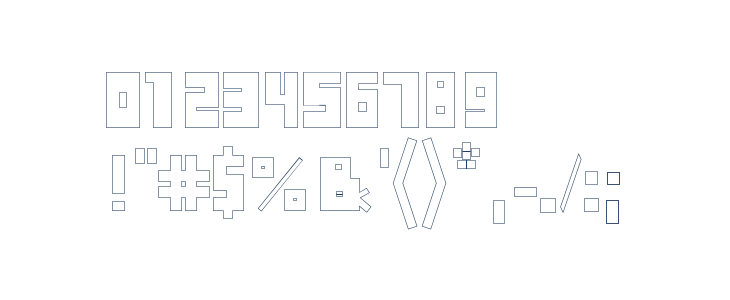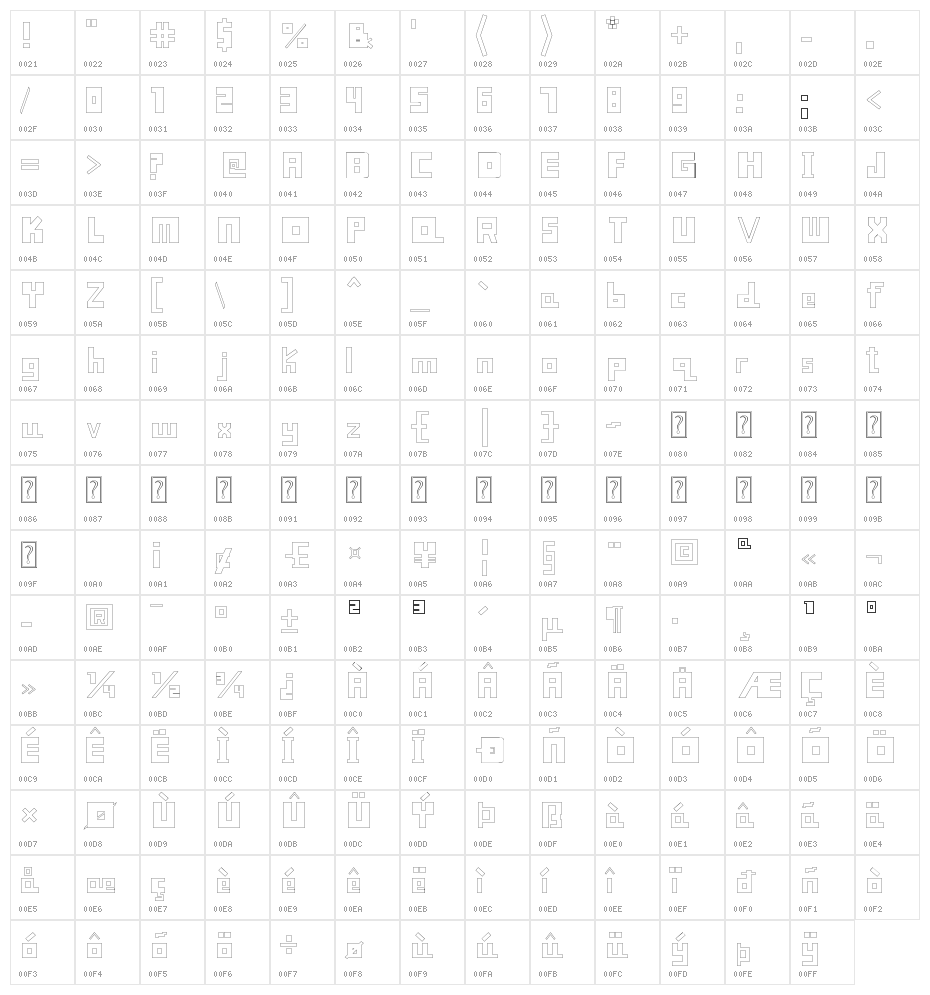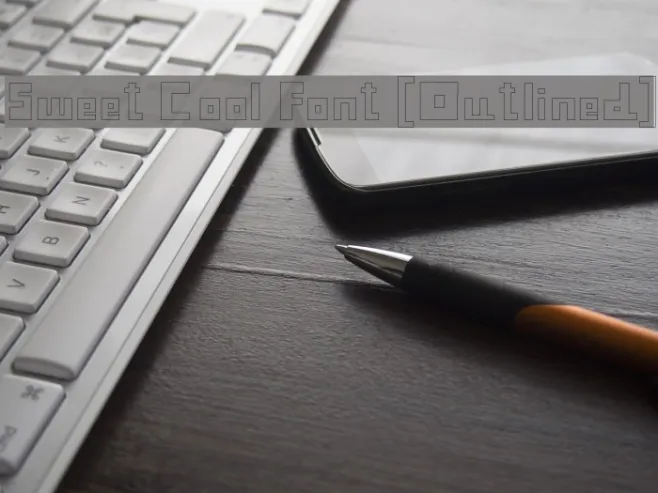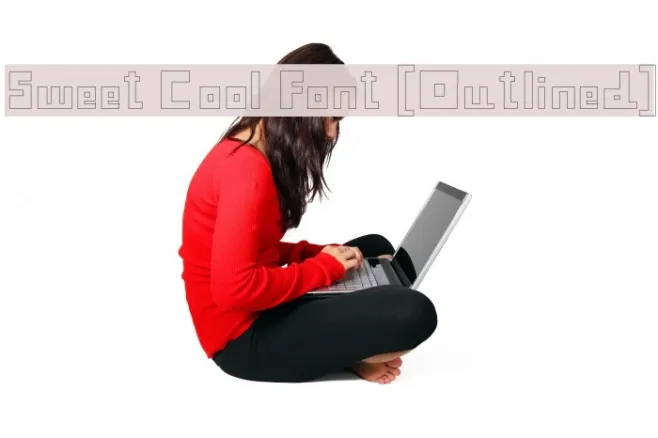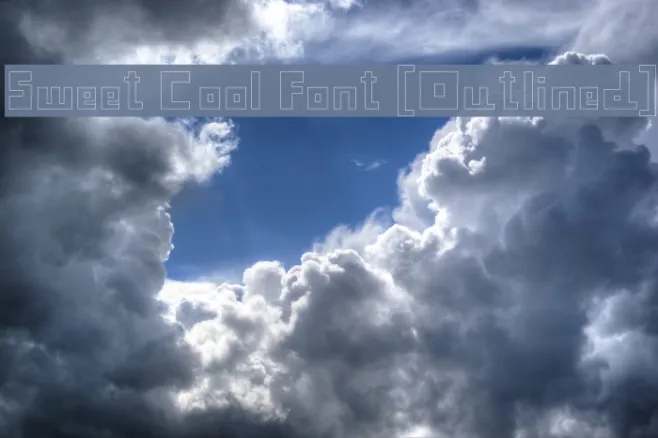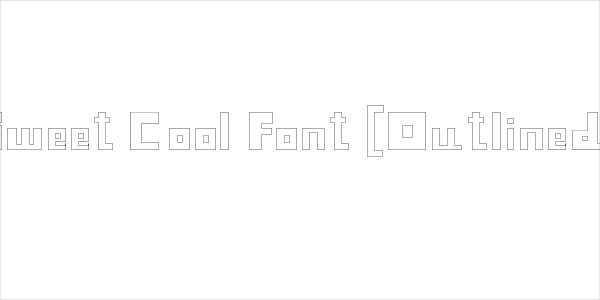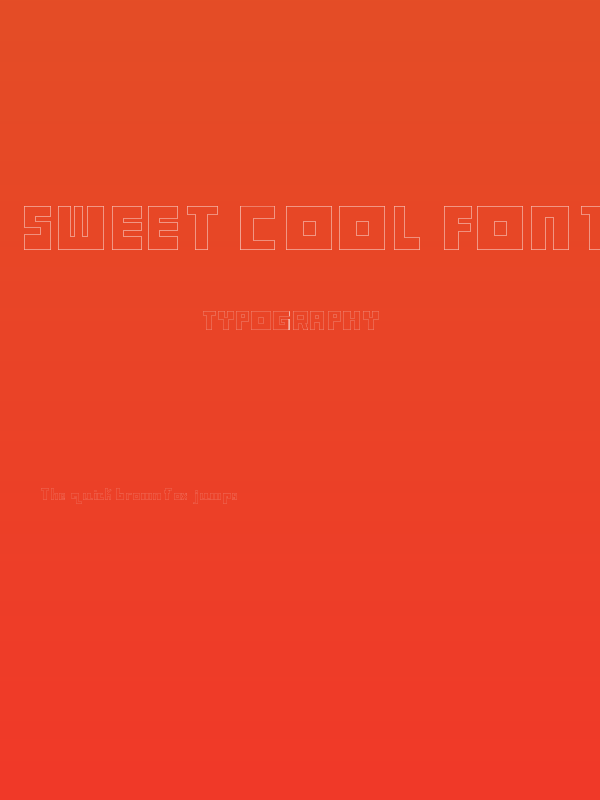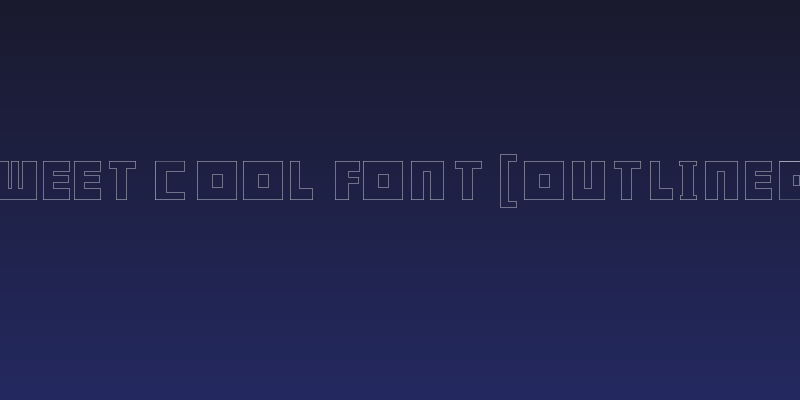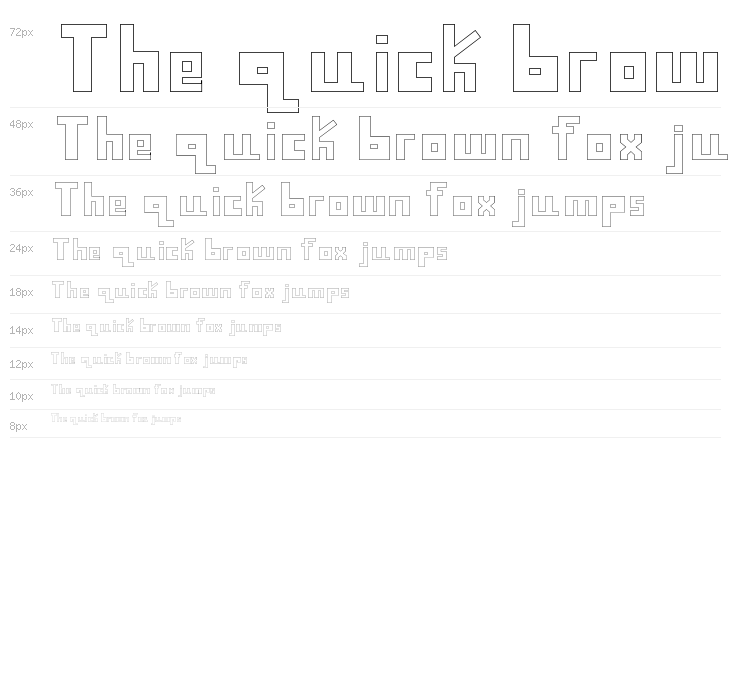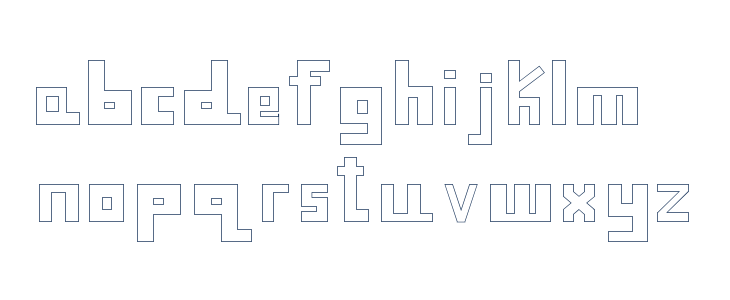
Sweet Cool Font [Outlined] Font
Sweet Cool Font [Outlined] Description
This font features an outlined, geometric style with a modern and playful aesthetic. The characters are constructed with clean, straight lines and sharp angles, creating a structured yet approachable appearance. The uppercase and lowercase letters maintain a consistent height, contributing to a cohesive look. Numbers and special characters follow the same outlined design, ensuring uniformity across all glyphs. The font's simplicity and clarity make it suitable for a variety of design applications, offering a unique blend of readability and visual interest.
| Proposed Projects | Ideal for branding, posters, headlines, and digital graphics where a modern and playful touch is desired. |